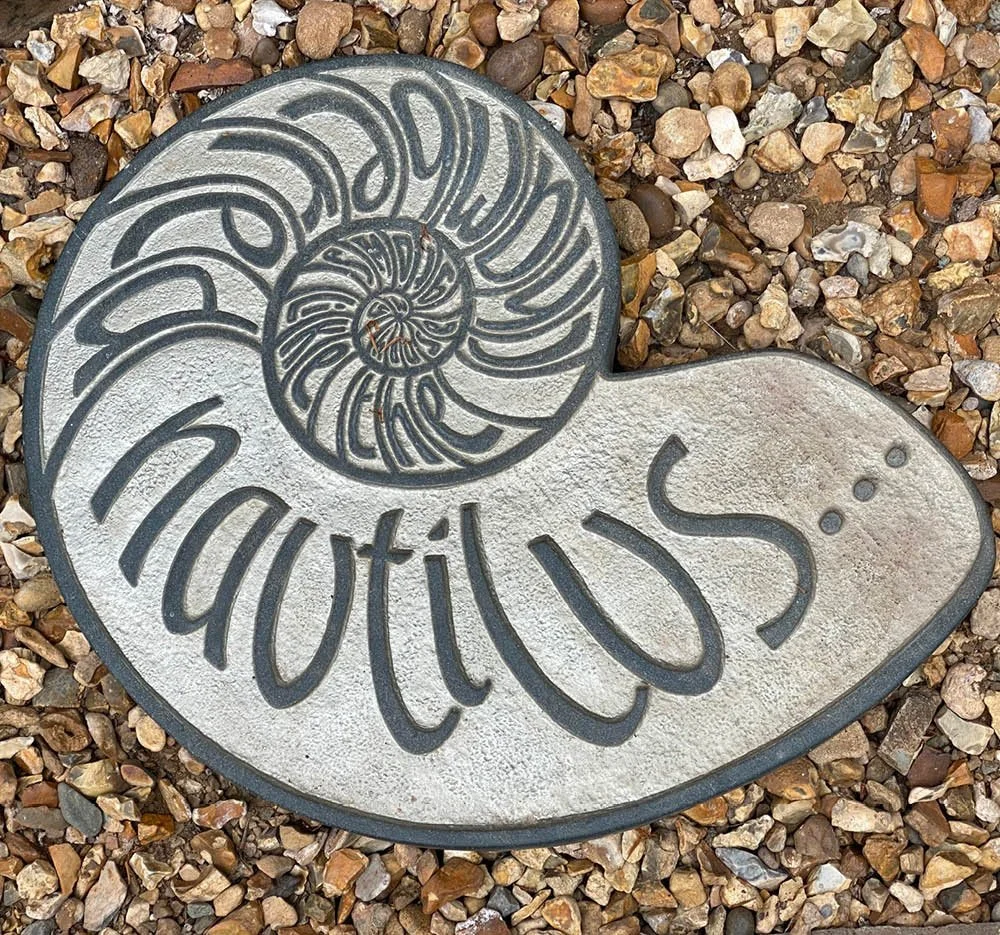
Nautilus by Pippa Westoby
The inscription ‘My house grows like the chambered nautilus’ is from the poem ‘This Shell’, by patron of the surrealist art movement, Edward James. James built an extravagant surrealist sculpture park in the Mexican rainforest, and wrote this line on a wall in his living quarters.
‘When I found out about Edward James and his house, I felt that using a line from one of his poems would be a fitting memorial to him. My design is slightly ‘wacky’ to reflect the fact that James was a somewhat eccentric person.’